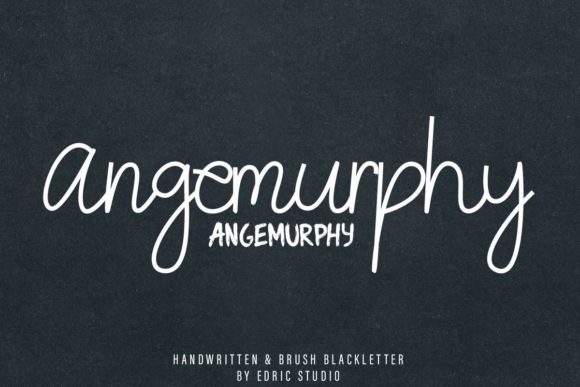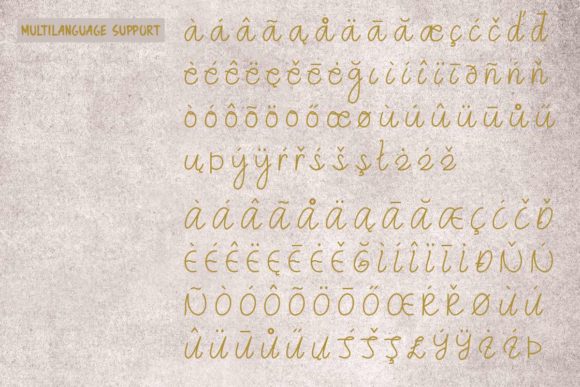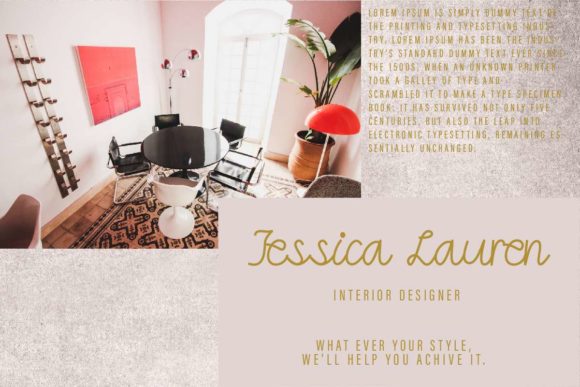
About Angemurphy Font
Angemurphy is a beautiful duo typeface with a unique style. It combines a script style with a brush style. It will elevate a wide range of design projects to the highest level, be it branding, headings, wedding designs, invitations, signatures, logos, labels, and much more!